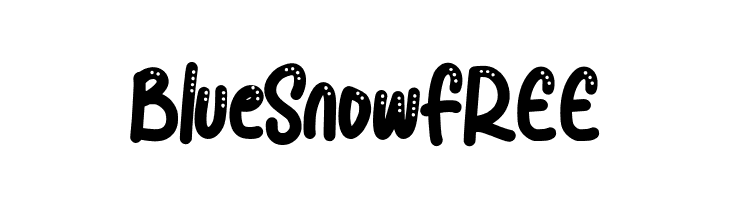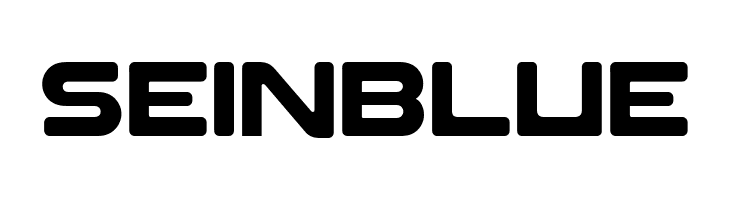
A playful, handwritten font with bold, rounded strokes and a dynamic slant.
A dynamic, expressive handwritten script font with fluid strokes.
A bold, modern font with a geometric and futuristic design.
A whimsical and elegant font with intricate swirls and loops.
A playful, bold, and hand-drawn style with fluid strokes.
A bold, modern font with rounded edges and geometric structure.
A playful and artistic script font with a hand-drawn, cursive style.
A dynamic and lively script font with flowing, interconnected letterforms.
A playful, bold font with rounded characters and dotted accents.
A playful, bold font with dotted accents and a hand-drawn feel.